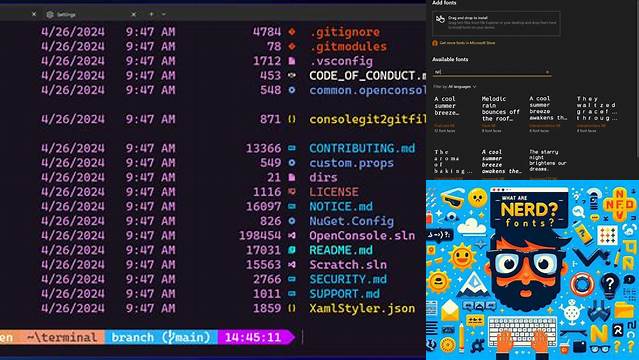
Nerd Fonts For Windows 10: A Complete Guide
Hey guys! So, you're looking to spice up your command line or code editor on Windows 10 with some awesome-looking characters? You've probably heard about Nerd Fonts, and if you're wondering how to get them working on your trusty Windows 10 machine, you've come to the right place. We're going to dive deep into everything you need to know, from what Nerd Fonts actually are to the nitty-gritty of installing and using them. Let's get this party started!
What Exactly Are Nerd Fonts and Why Should You Care?
Alright, let's break down what makes Nerd Fonts so darn cool. At its core, Nerd Fonts is a project that takes popular programming fonts and patches them with a massive collection of extra glyphs and icons. Think of it like giving your regular font a superhero upgrade. Why would you want this, you ask? Well, for starters, it's all about enhancing your developer experience. Many modern tools, like oh-my-zsh, powerlevel10k, and various terminal emulators, utilize special icons for things like Git status, file types, or even just to make your prompt look super slick. Without these patched fonts, those icons often show up as confusing squares or question marks, which is, let's be honest, a total buzzkill. Nerd Fonts aim to solve this problem by embedding all those necessary glyphs directly into the font file. This means your terminal, your code editor, and any other application that supports custom fonts can display these icons beautifully. It's not just about aesthetics, though; it's about clarity and efficiency. Having clear visual cues for different elements can make it easier to parse information quickly, especially when you're deep in a coding session. Plus, let's face it, a well-configured terminal with cool icons just feels more productive and enjoyable to use. So, if you're spending a significant amount of time in your terminal or a code editor, investing a little time to set up Nerd Fonts is definitely a worthwhile endeavor that pays off in the long run. It's a small tweak that can have a big impact on your day-to-day workflow, making coding and command-line work a lot more visually appealing and functional. This project is a community-driven effort, constantly updated with new icons and glyphs, ensuring it stays relevant with the evolving landscape of developer tools.
The Magic Behind Nerd Fonts: Glyphs and Icons Galore
The real magic of Nerd Fonts lies in their extensive collection of glyphs and icons. These aren't just random additions; they're carefully selected symbols designed to represent various elements commonly used in development environments. We're talking about icons for Git branches, commit statuses (like added, modified, or deleted files), file type indicators, programming language symbols, and even special characters for popular command-line tools and frameworks. The project takes well-known programming fonts, like Fira Code, Hack, Source Code Pro, and many others, and merges them with glyphs from sources like Font Awesome, Material Design Icons, Powerline Symbols, and many more. The result is a single font file that offers both excellent readability for coding and a rich set of visual elements. Imagine seeing a little Git icon next to your branch name, or a folder icon that instantly tells you the file type – that's the power Nerd Fonts brings to the table. This integration is seamless; once installed, the font behaves like any other font on your system, but with this added layer of visual richness. The sheer variety of icons available means you can customize your terminal prompt or editor to be incredibly informative and personalized. Whether you're a seasoned developer or just starting, the ability to quickly identify different elements through icons can significantly speed up your workflow and reduce cognitive load. It’s like having a visual cheat sheet embedded directly into your text interface. The ongoing development by the community ensures that as new tools and icons emerge, Nerd Fonts will likely incorporate them, making it a future-proof solution for enhancing your coding environment. The meticulous work of patching these fonts ensures that the original font's design integrity is maintained while still adding the comprehensive icon sets.
Popular Programming Fonts Enhanced by Nerd Fonts
One of the best things about Nerd Fonts is that they don't reinvent the wheel; they enhance existing, high-quality programming fonts that developers already love. This means you get the readability and aesthetic qualities of fonts like Fira Code, which is famous for its ligatures that combine common character sequences into single symbols, or Hack, a font specifically designed for source code with a focus on legibility. Then there's Source Code Pro, Adobe's take on a monospaced font for coding, known for its clean and modern look. JetBrains Mono is another popular choice, crafted by developers for developers, offering excellent clarity and distinct character shapes. Nerd Fonts takes these excellent foundations and adds its extensive collection of glyphs. So, when you download a Nerd Font variant, you're not just getting a bunch of icons; you're getting, for example, FiraCode Nerd Font, which combines Fira Code's ligatures and clean design with all the extra icons. This hybrid approach ensures you don't have to sacrifice font quality for functionality. You get the best of both worlds: a fantastic font for writing code, plus all the visual aids you need for your terminal and tools. The project meticulously merges these icon sets, ensuring they blend well with the original font's design language. This means the added icons usually don't look out of place; they fit right in, enhancing the overall visual experience without being distracting. It’s this thoughtful integration that makes Nerd Fonts a favorite among developers who value both form and function in their development environment. You can pick your favorite programming font and rest assured that a Nerd Font version likely exists, ready to supercharge your setup.